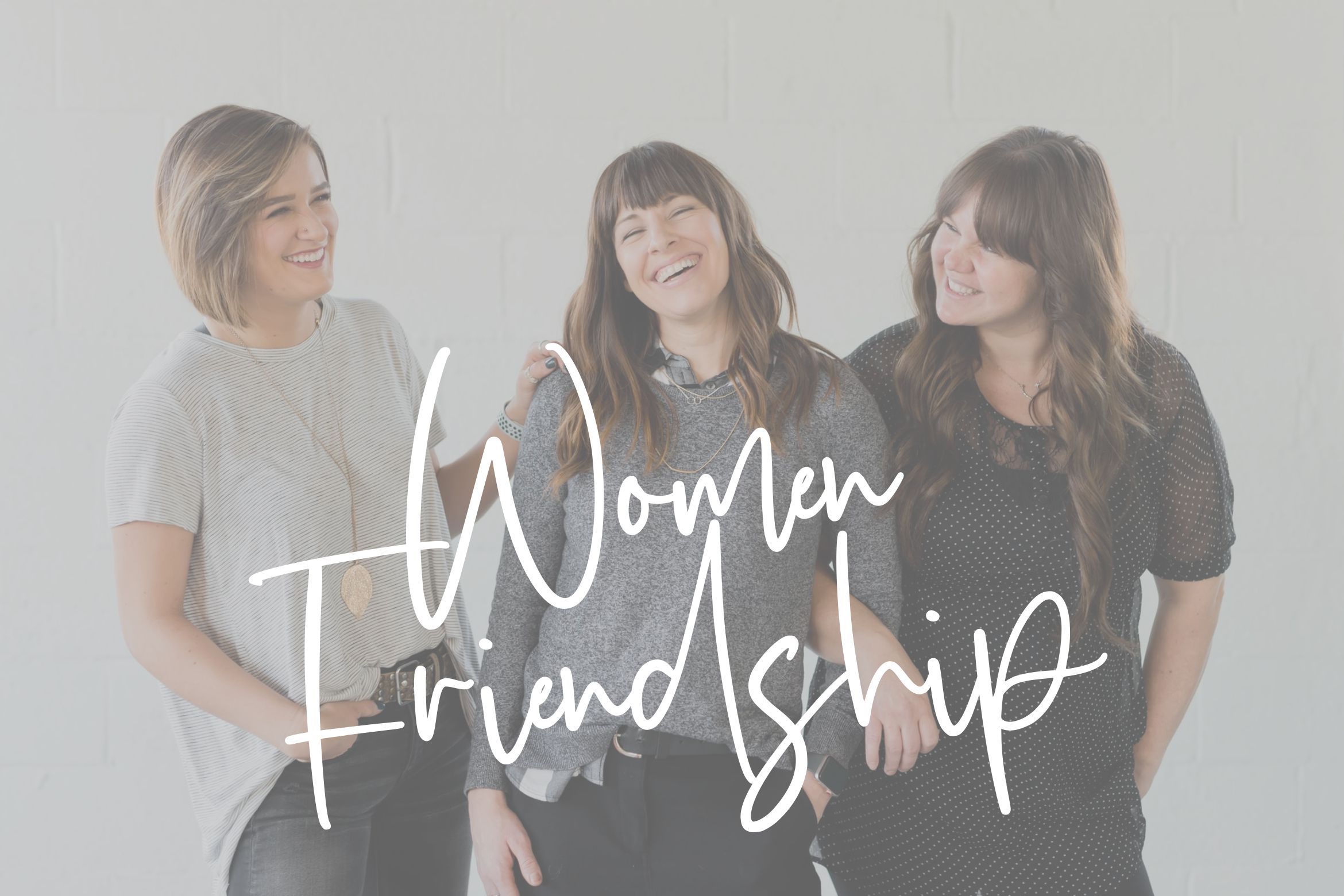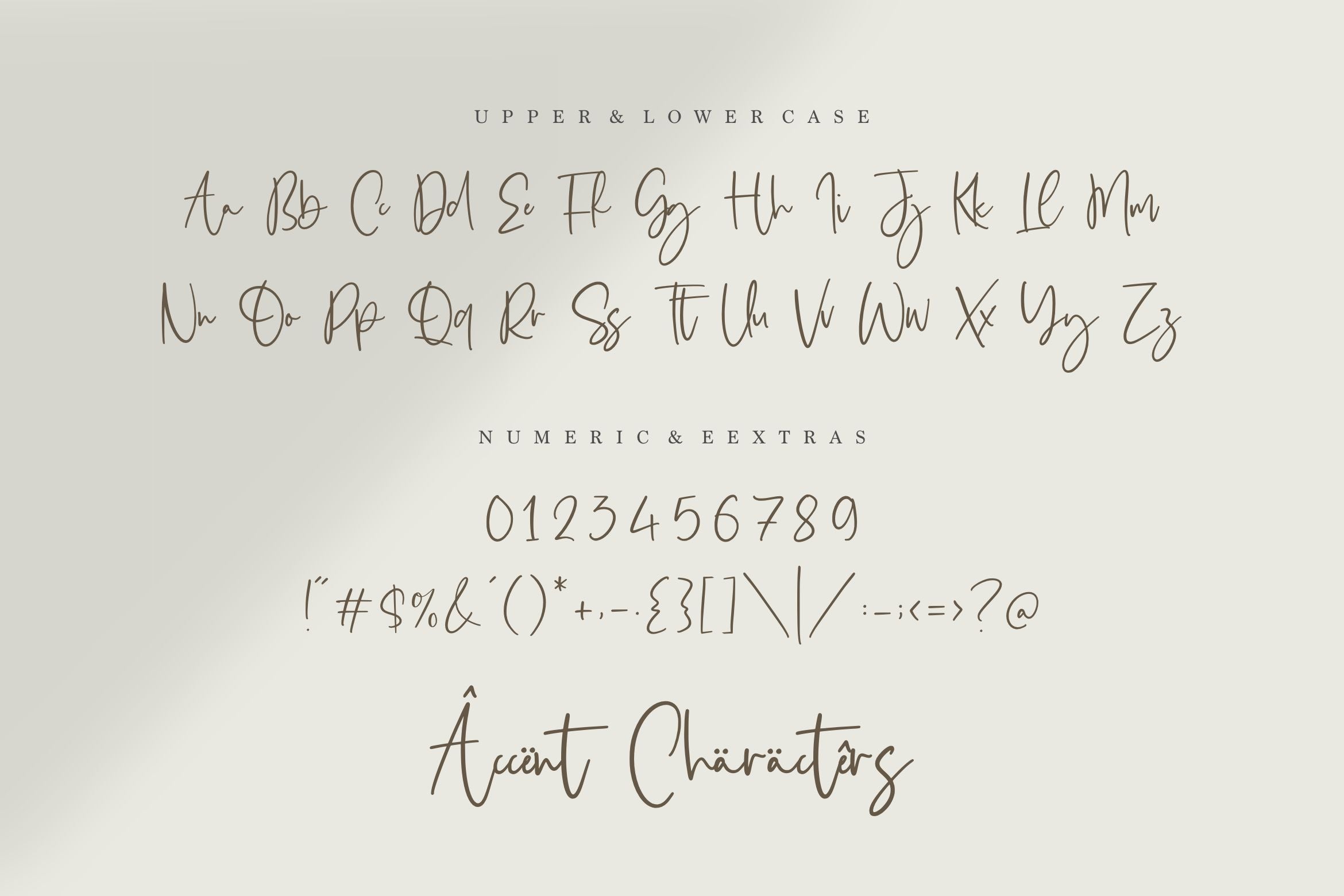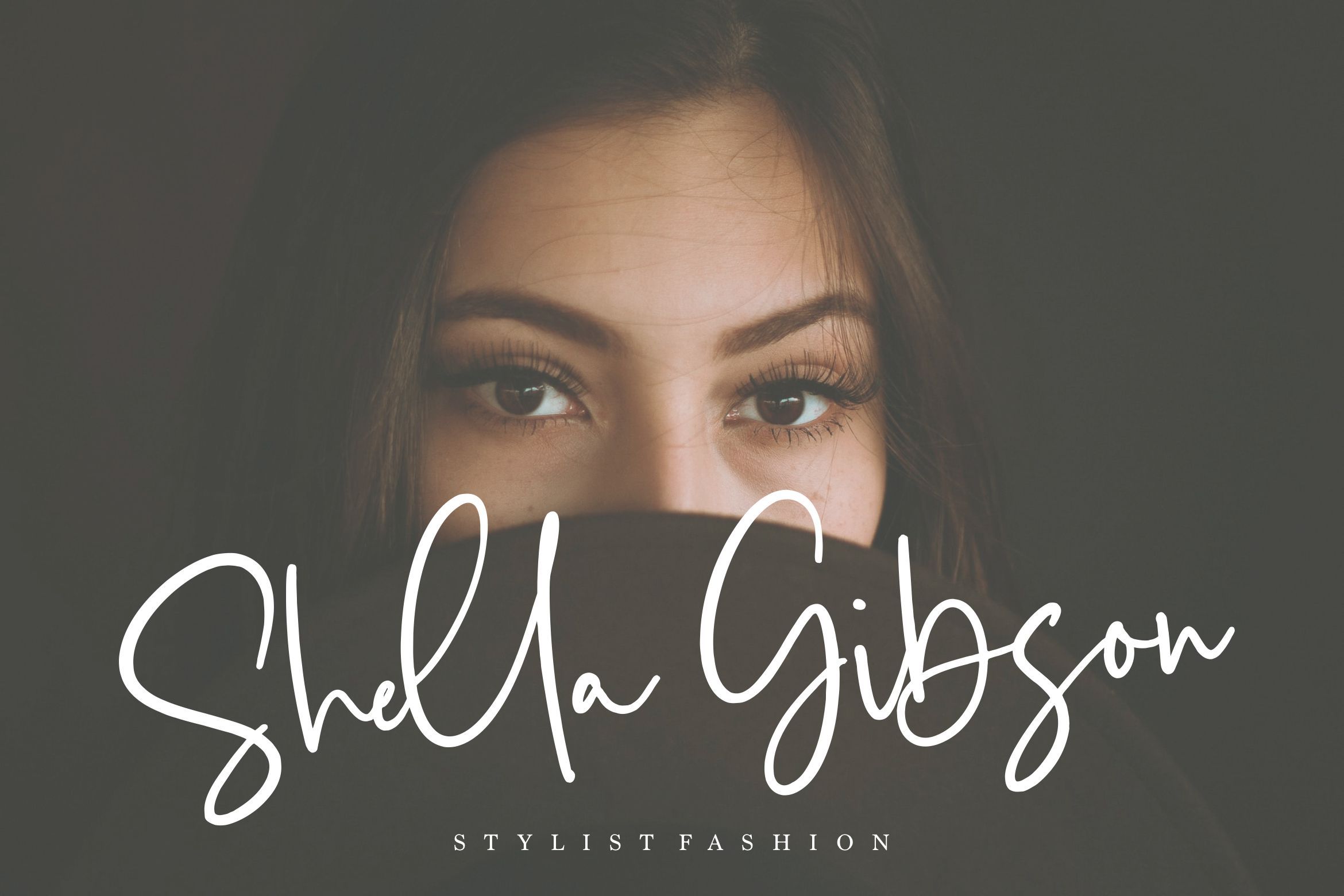
About Obladi Script Modern Calligraphy Script Font
Introducing by Letterative Studio : Obladi Script Font Obladi Script is a Modern Calligraphy Script Font Obladi Script is a lovely and timeless handwritten font. It is the best choice for creating eye catching logos, branding and quotes. Every letter has a unique and beautiful touch, which will make your design come alive! This font includes : TTF and OTF Obladi Script also multilingual support Enjoy the font! Feel free to comment or feedback Send me PM or email Thank you!